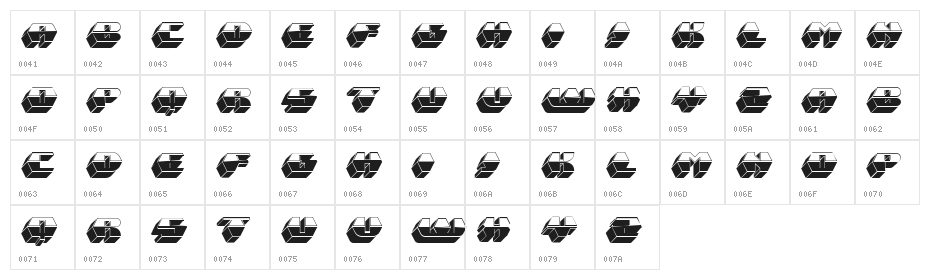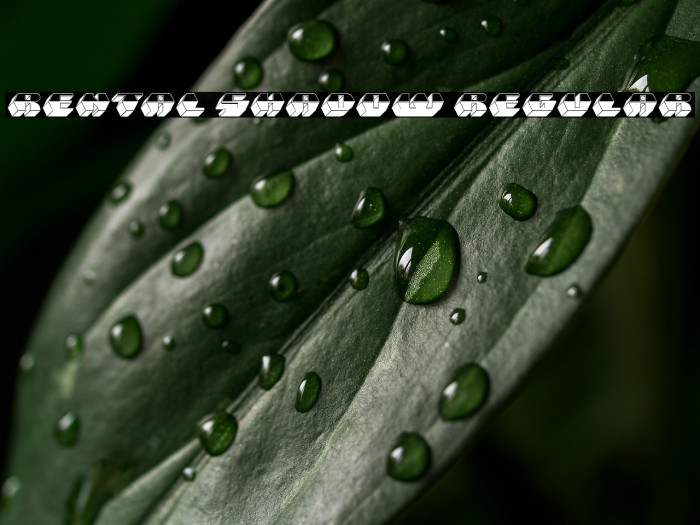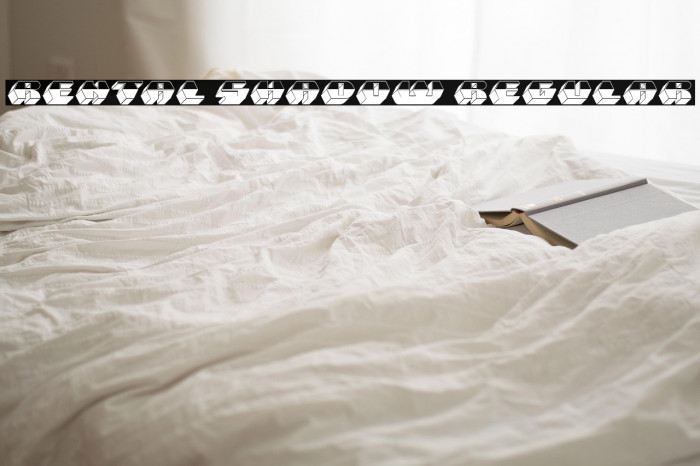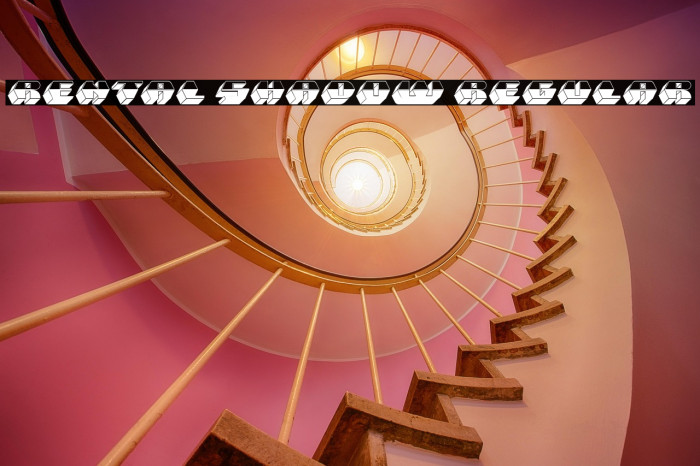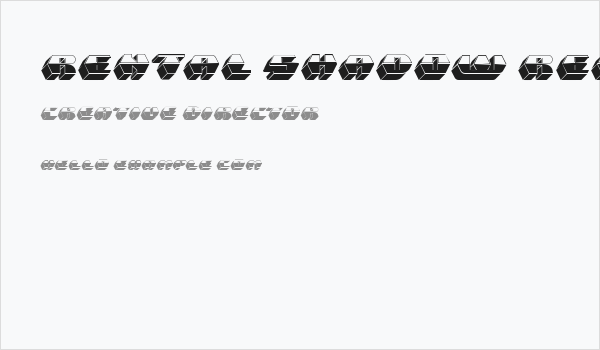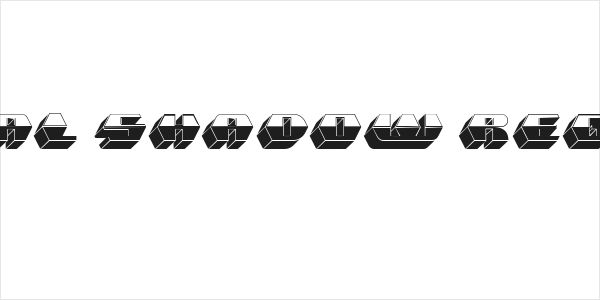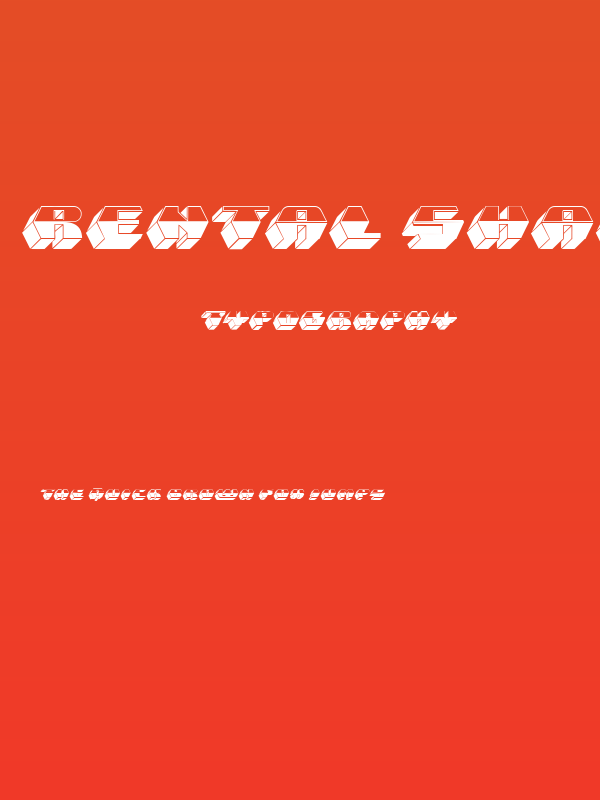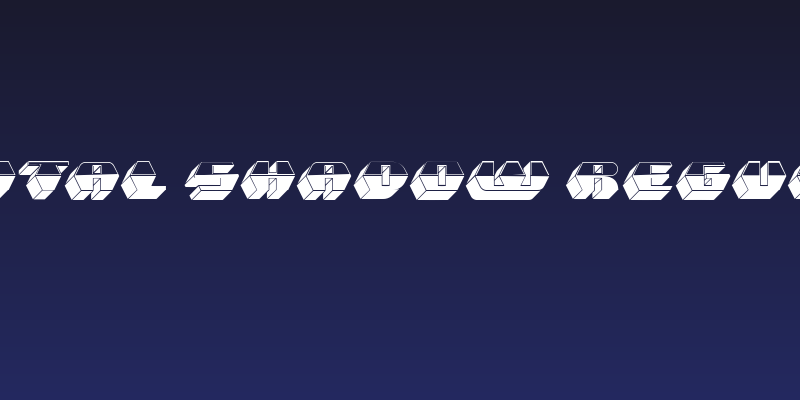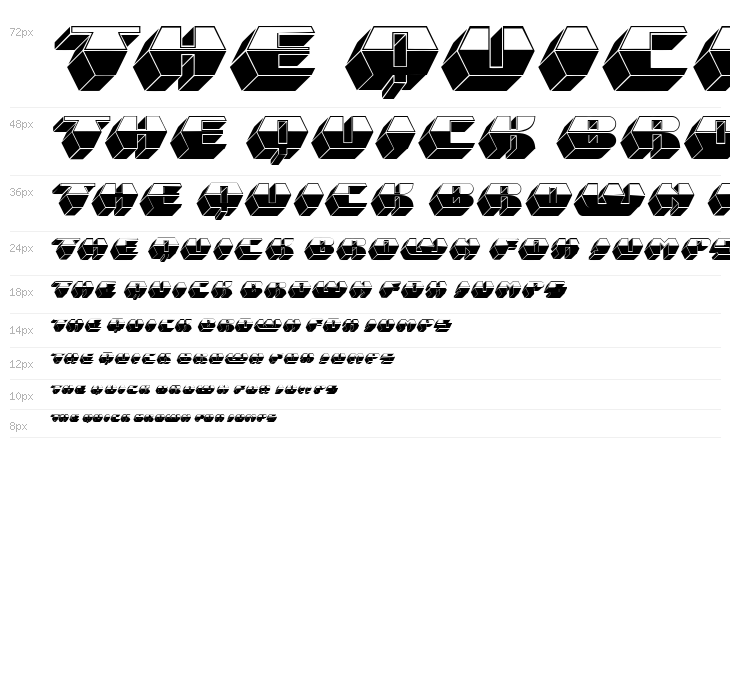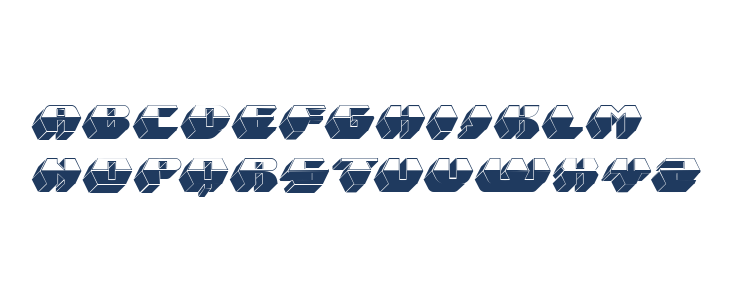
Rental Shadow Regular Font
Rental Shadow Regular Description
This font features a bold, three-dimensional design with a shadow effect that gives each character a distinct, block-like appearance. The letters are uppercase, with a geometric style that emphasizes sharp angles and clean lines. The shadowing adds depth, making the font stand out, ideal for eye-catching displays. The characters are uniformly spaced, maintaining a consistent look across the typeface. The overall style is modern and decorative, suitable for projects that require a strong visual impact.